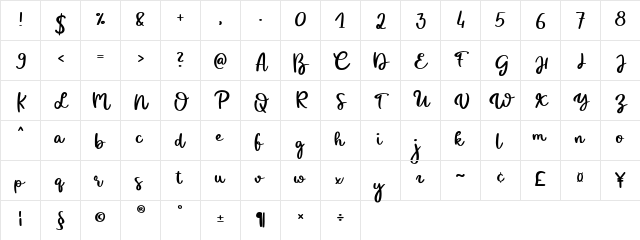
Sunshine Demo Regular
Design Context for Sunshine Demo Typeface
Sunshine Demo is a composed and adaptable typeface that performs quietly and consistently across a wide range of design contexts.
Pro Tip: Use Sunshine Demo in both headline and body roles to test its range before committing to a single application.